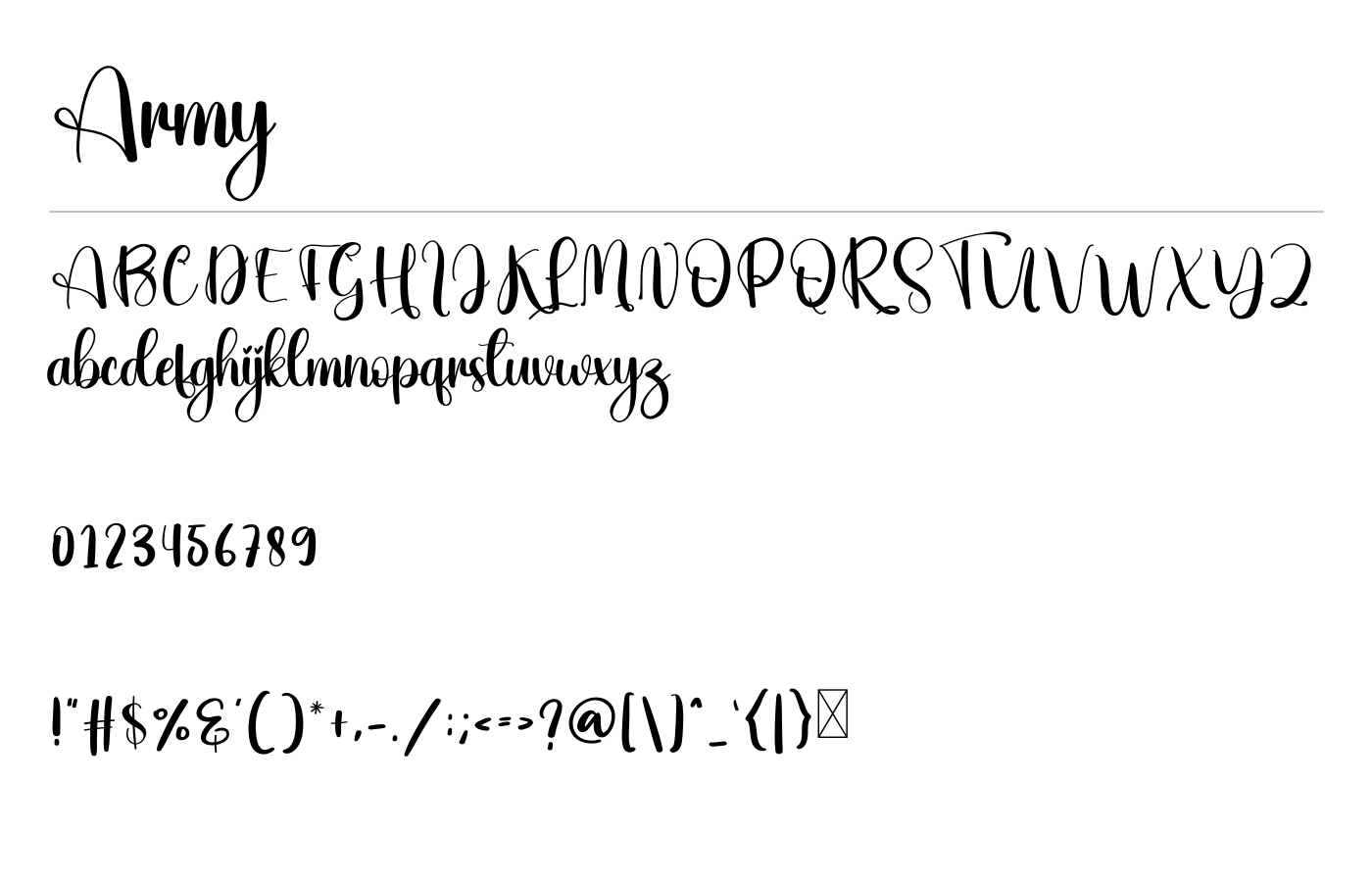
Army Font is a playful and elegant script with a handwritten feel, featuring flowing strokes and decorative swashes that add charm and personality. Its moderate weight and high contrast between thick and thin lines make it perfect for stylish invitations, branding, and creative projects that need a warm, personal touch. This font works best in display uses like logos or headlines where its distinctive character can truly shine.
Army Font
About Army Font